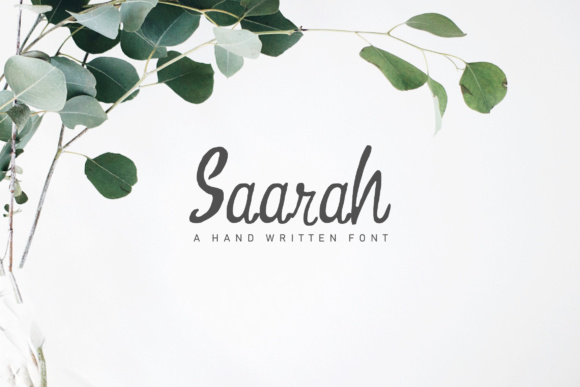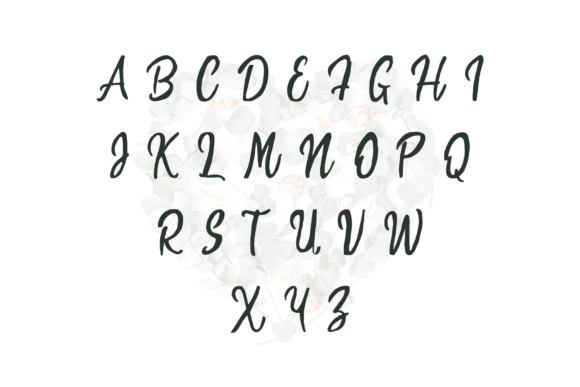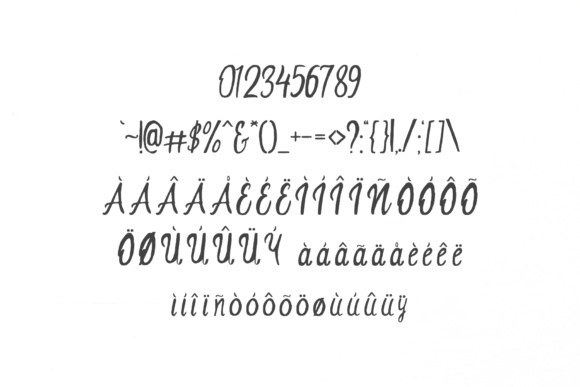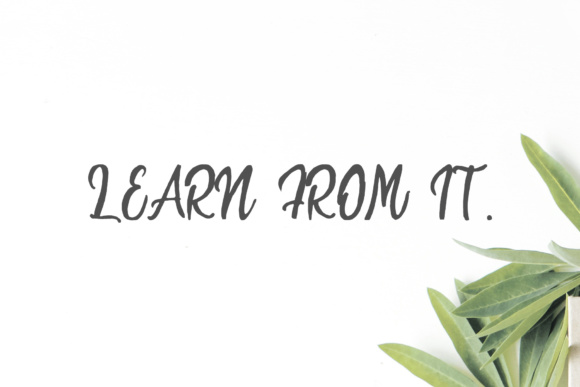
Saarah Font
About Saarah Font
Saarah is a fresh handmade script font written with gentle curves. Saarah is very suitable for greeting cards, branding materials, wedding postcard, business cards, quotes, posters, small business, book covers, stationery, marketing, magazines and more.